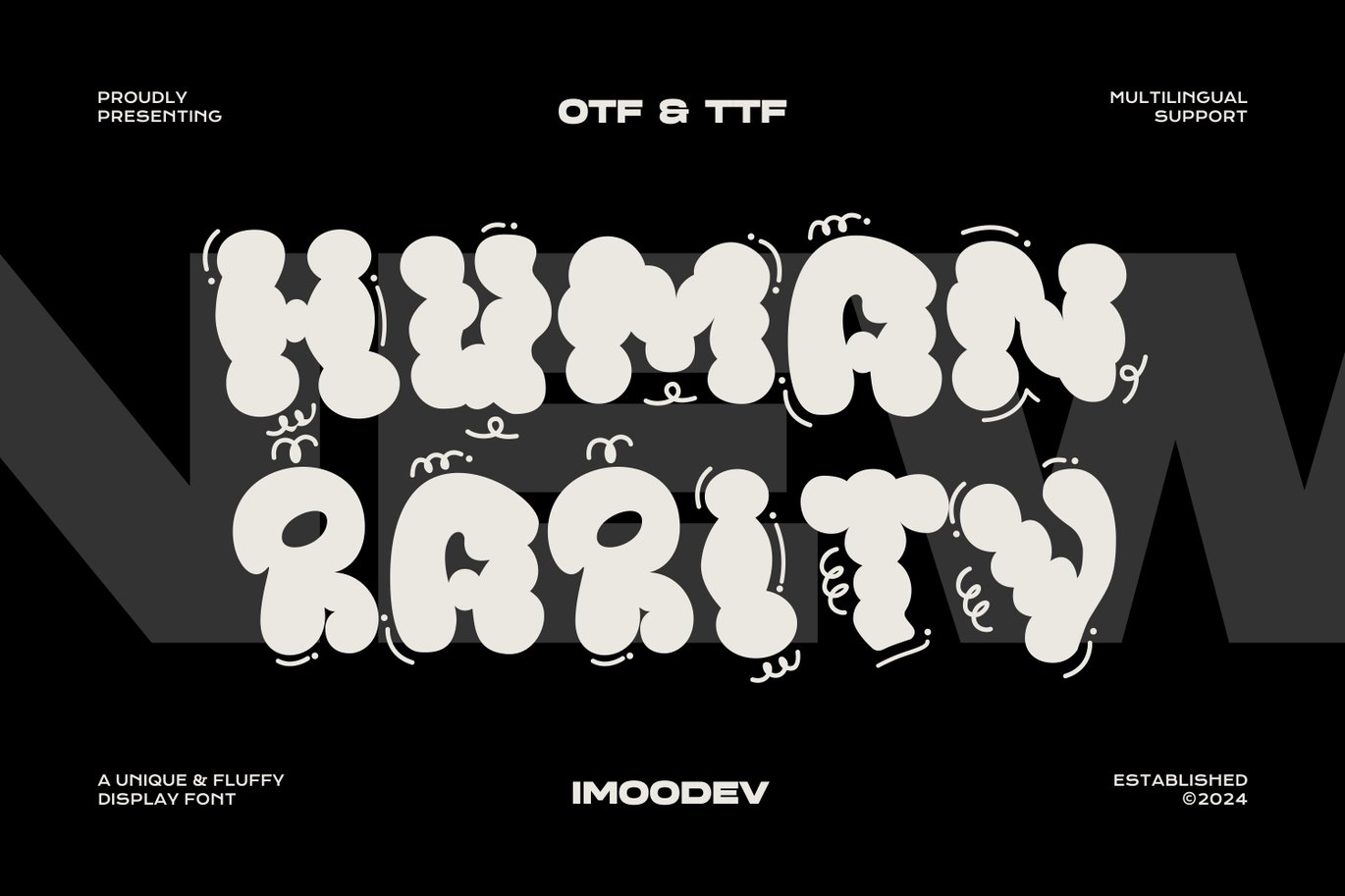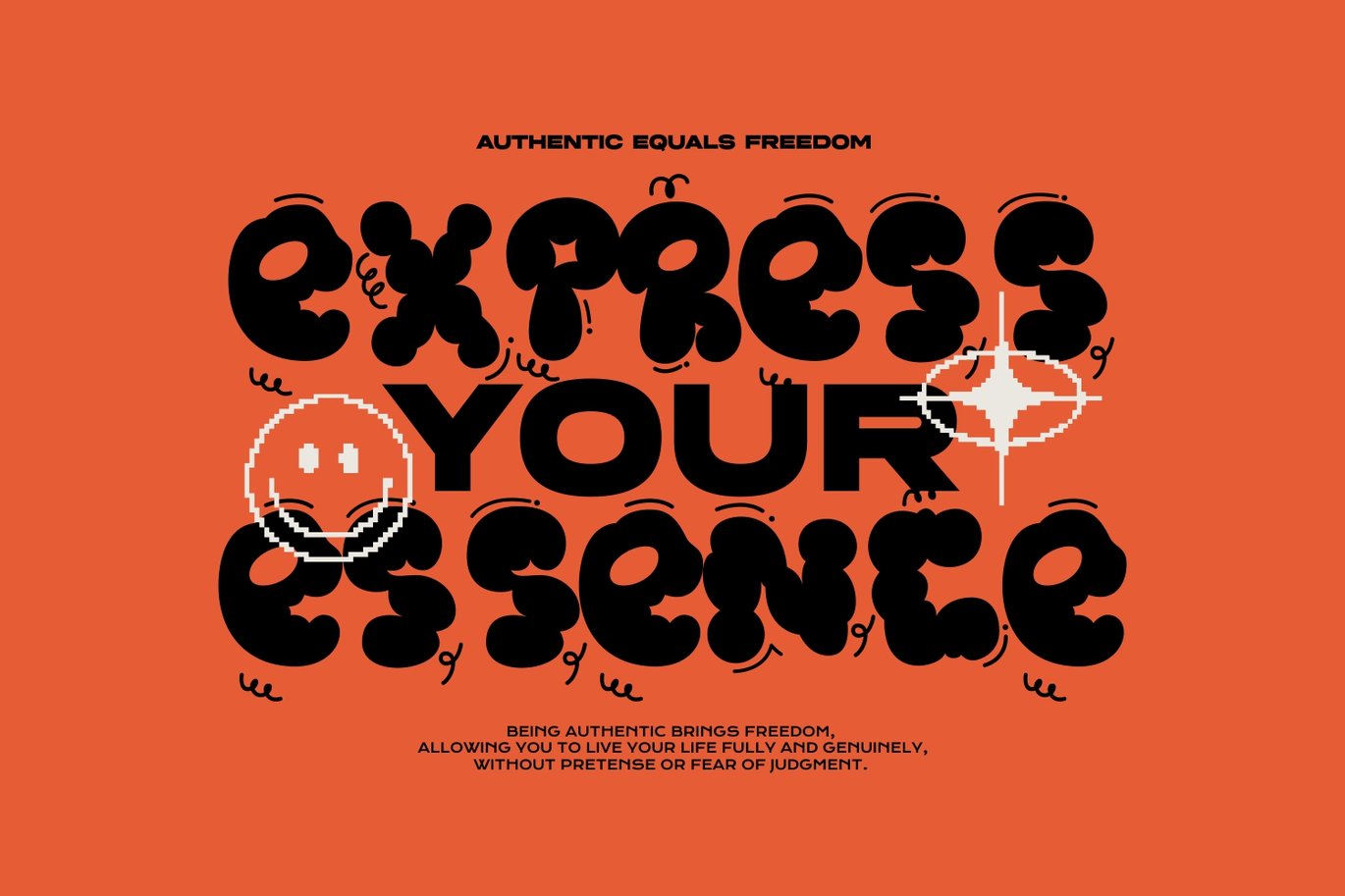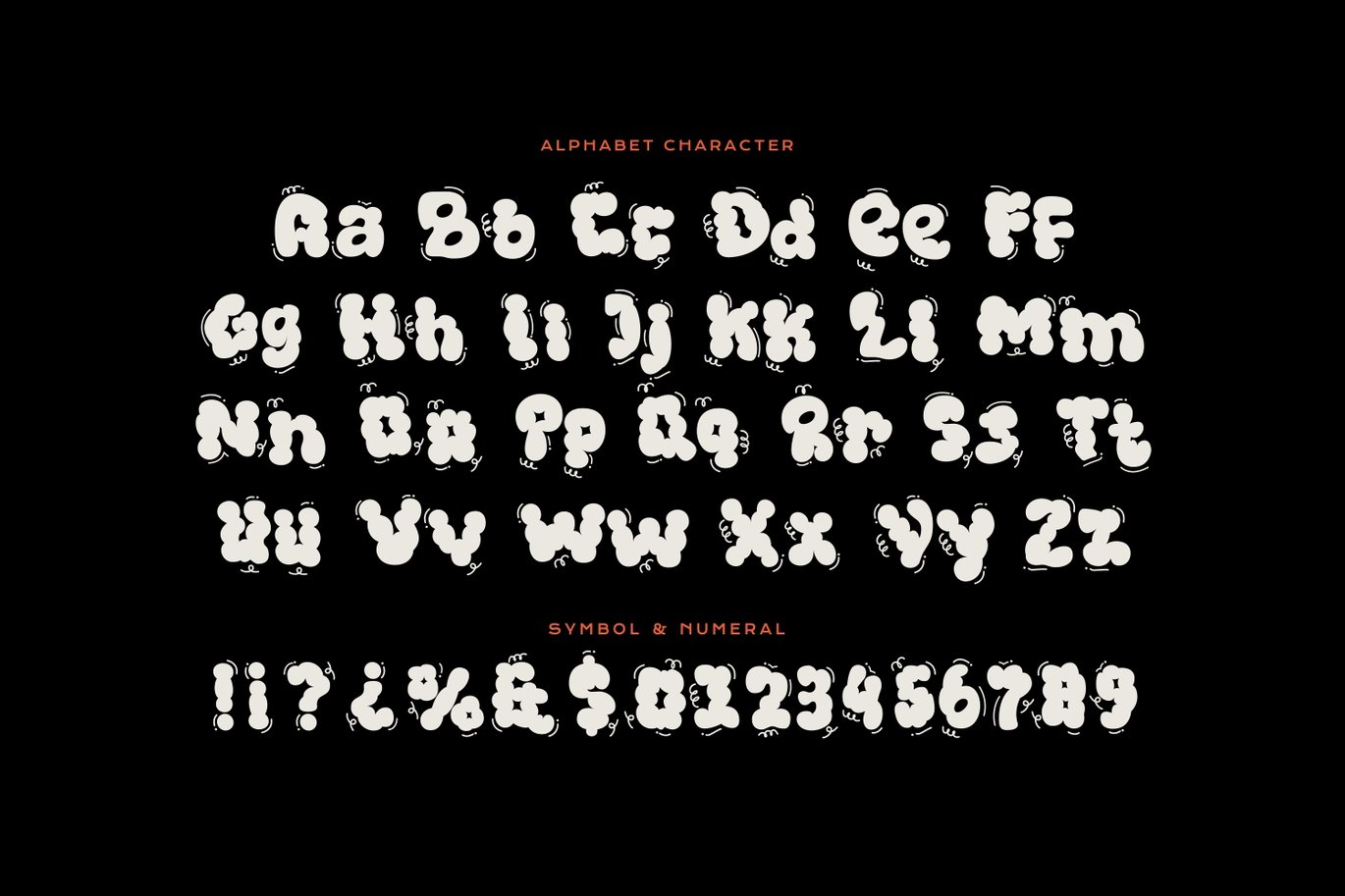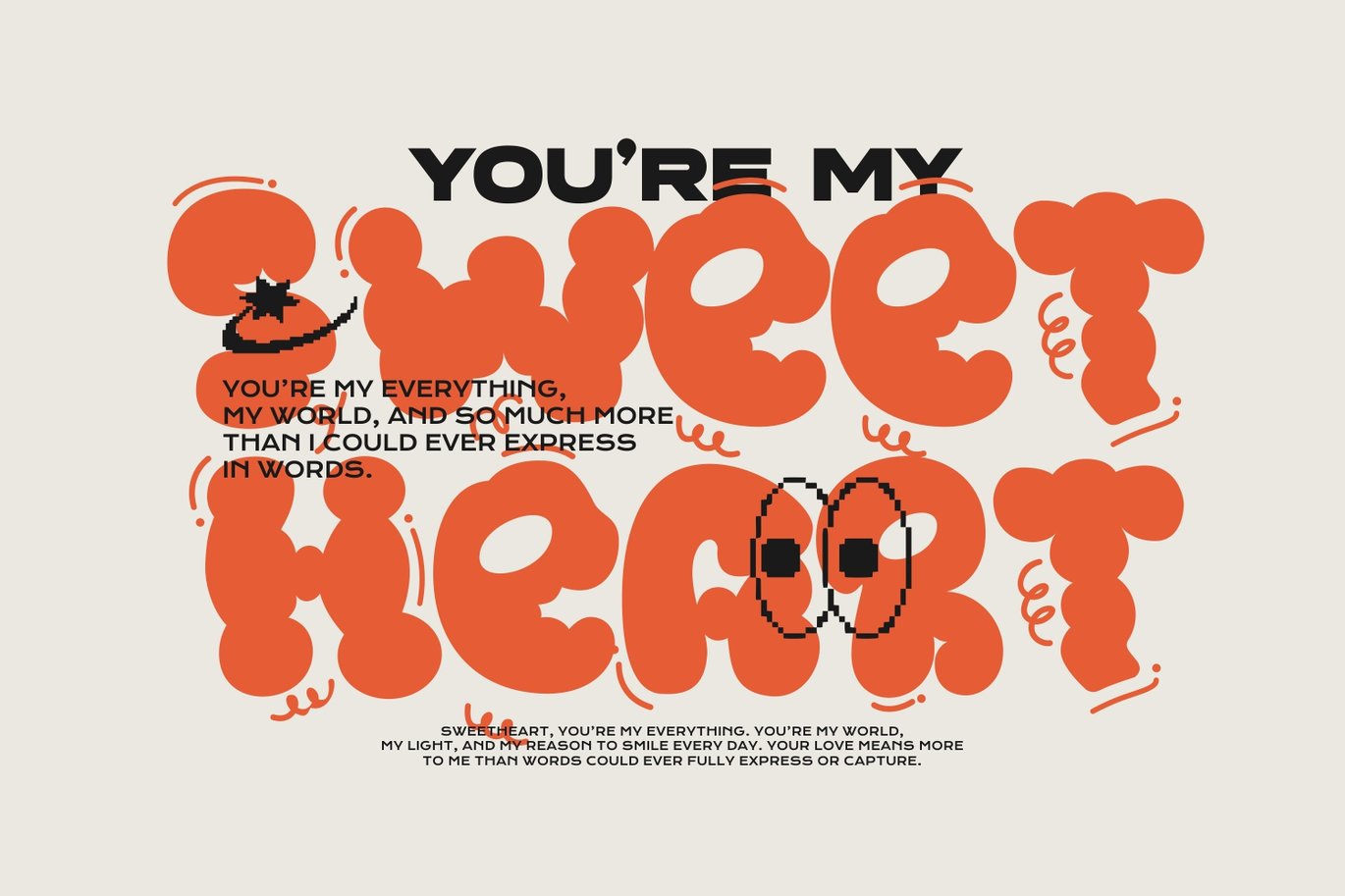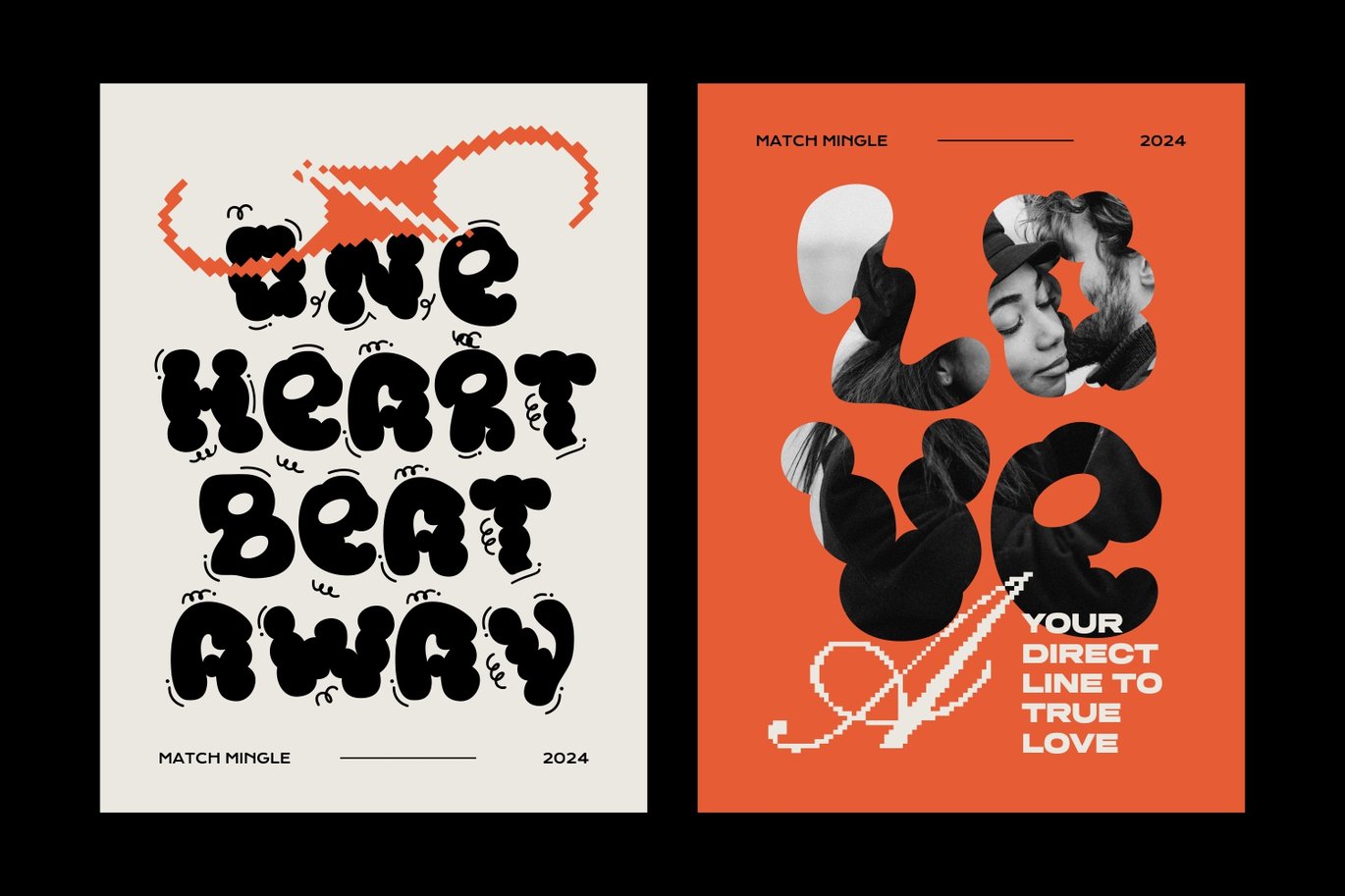
Human Rarity – Cloud Bubbles Font
Human Rarity is a cloud bubbles font, fluffy fun display typeface with a wavy form. Inspired by the transient beauty of clouds, This font combines artistic aesthetics with everyday functionality.
Thought the font has distinct use cases depending on the creator, it can be best used for headings, short words and illustrative typographic projects.
Suitable for a wide variety of projects such as a display font for headings, logo fonts, invitations, branding, book covers, magazine layouts, packaging, product mockup, posters, labels, editorials, wedding invitation, and any type project.